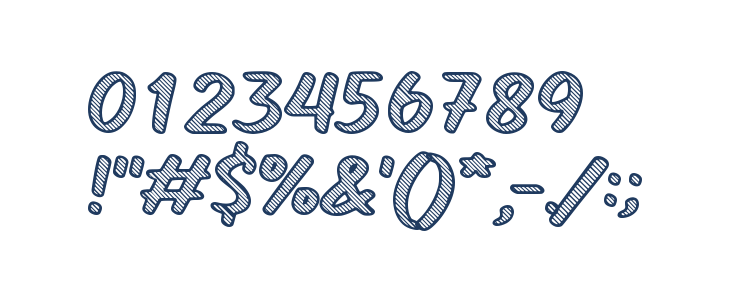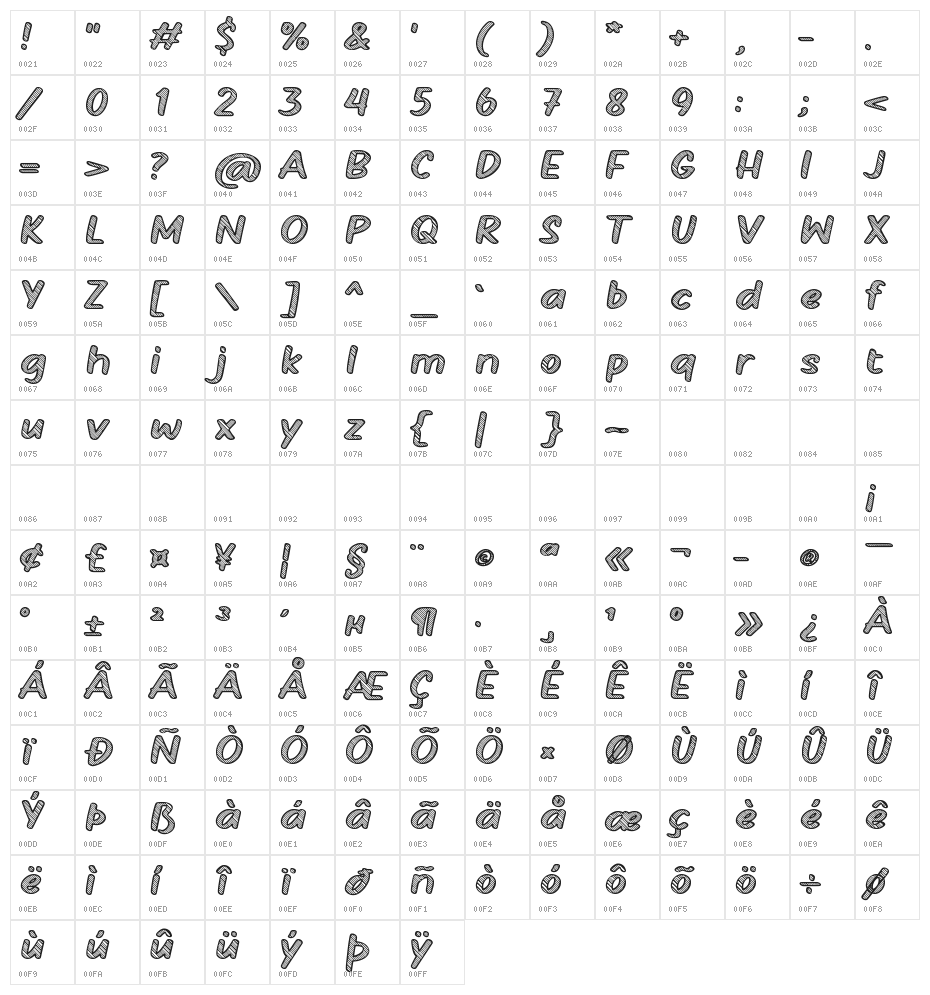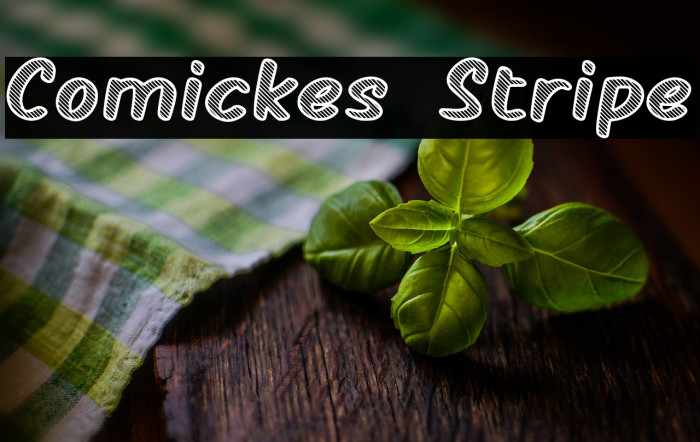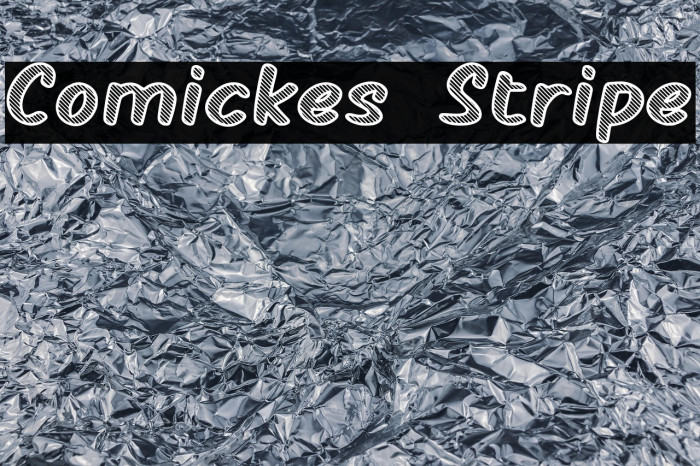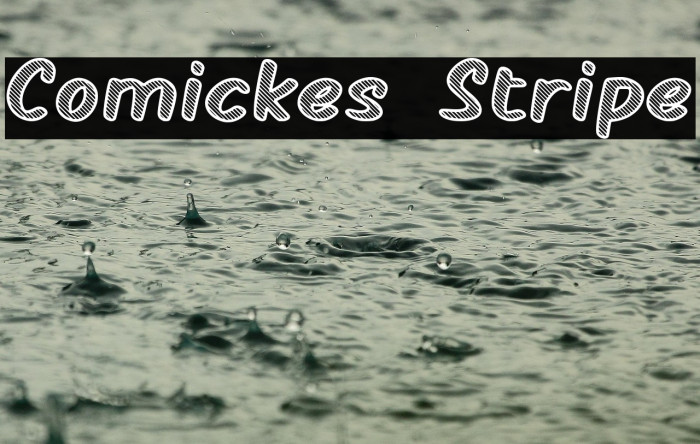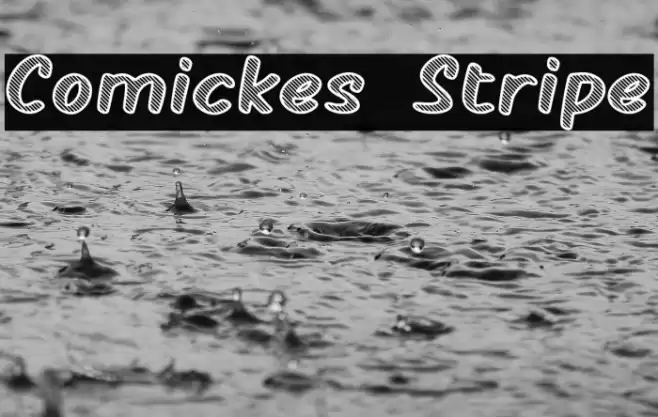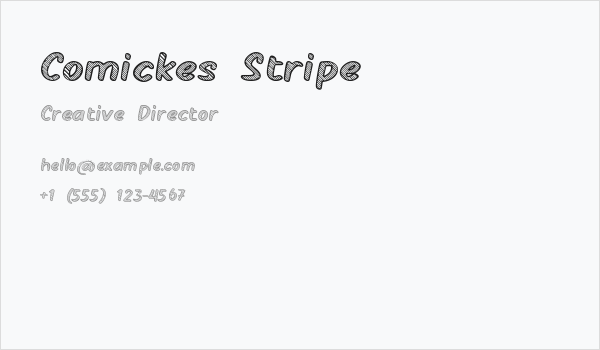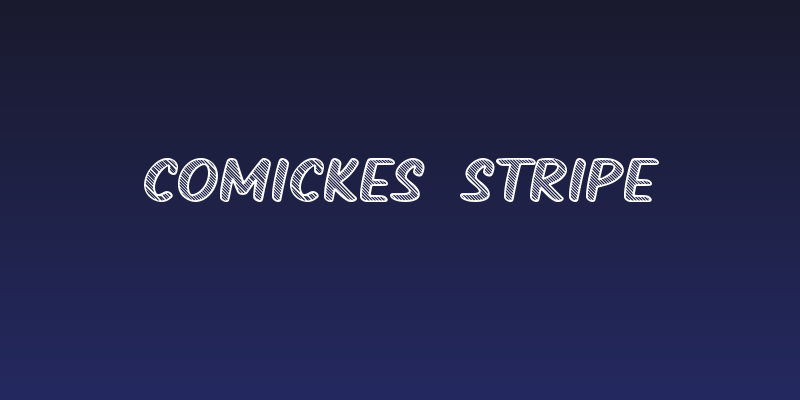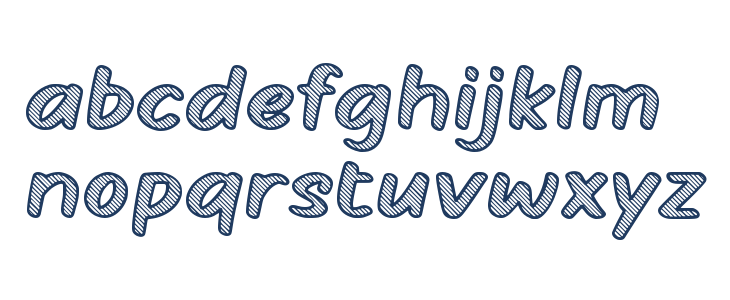
Comickes Stripe Font
Comickes Stripe Description
This playful and dynamic font features bold, rounded characters with a distinctive striped pattern running diagonally across each letter and number. The design evokes a sense of fun and creativity, making it ideal for projects that require a lively and engaging visual appeal. The uppercase and lowercase letters maintain a consistent style, ensuring readability while adding a unique flair. The numerals and special characters are crafted with the same attention to detail, providing a cohesive look across all elements. The font's boldness and decorative style make it stand out, perfect for capturing attention in various design contexts.
Overall StylePlayful, Decorative
Proposed ProjectsIdeal for comic books, children's book covers, playful branding, posters, and creative advertising.